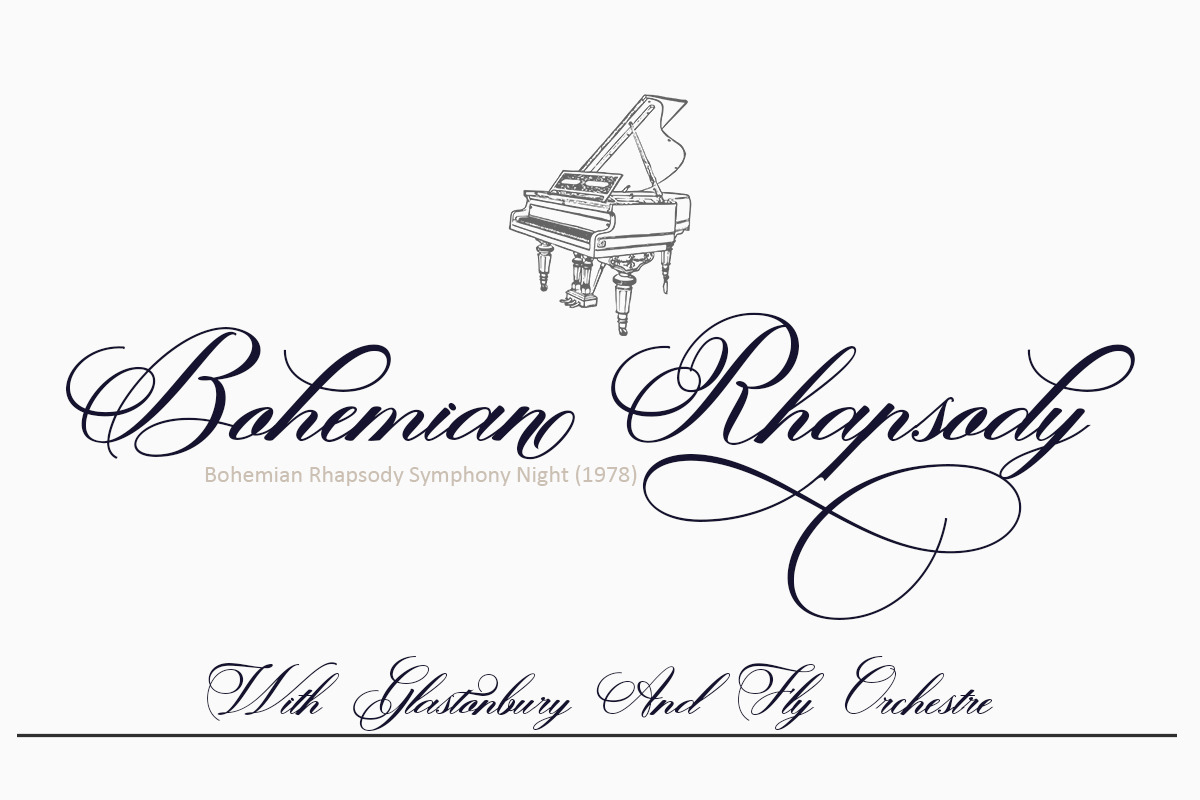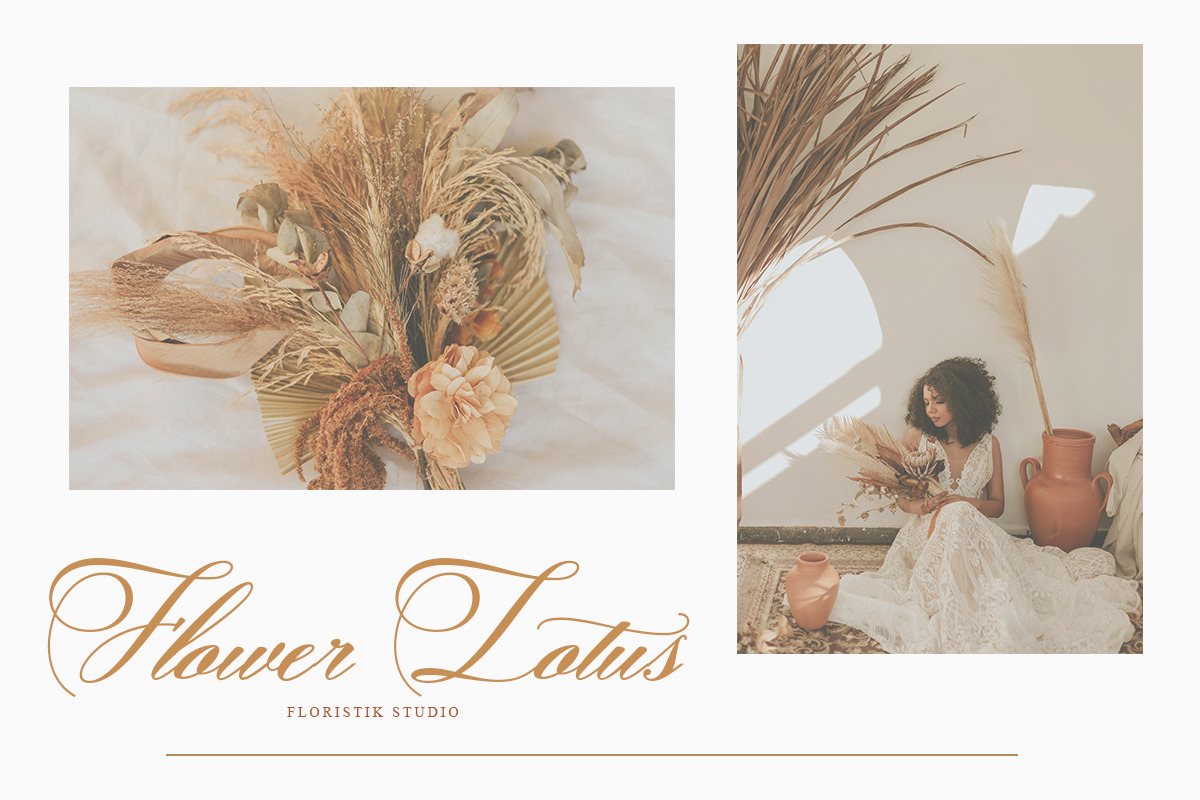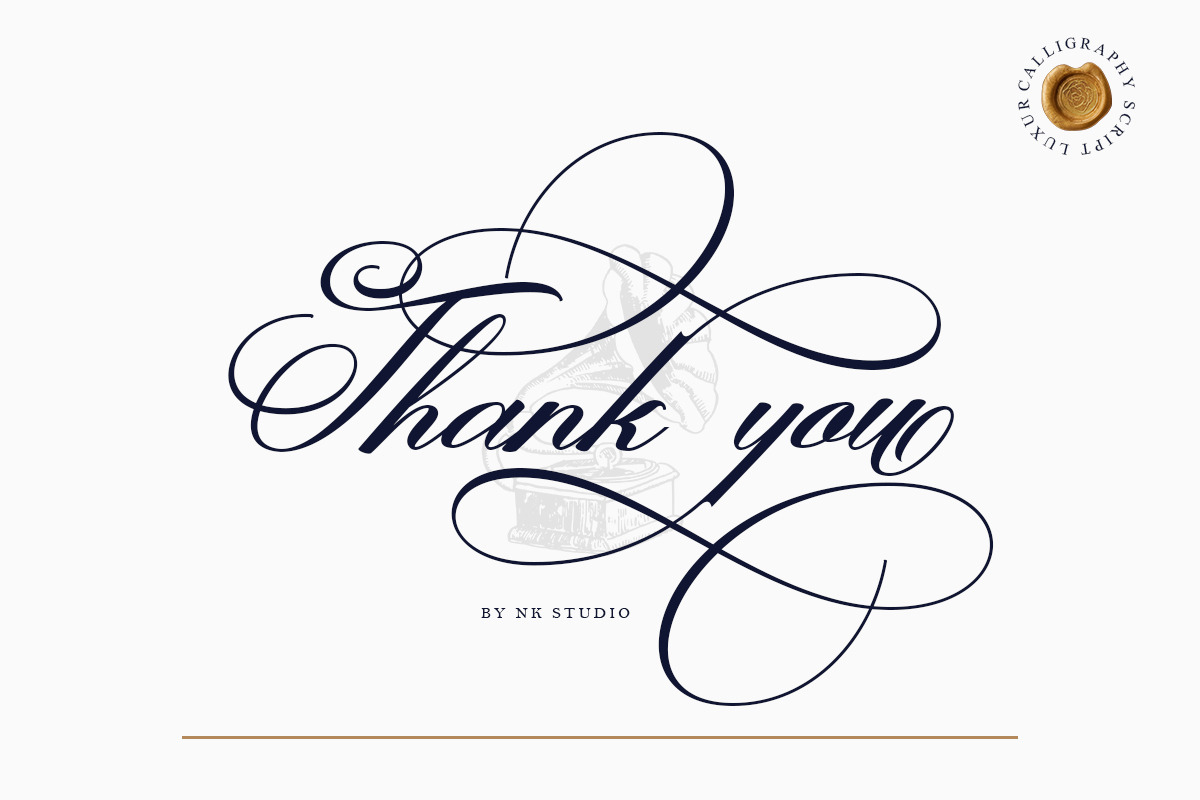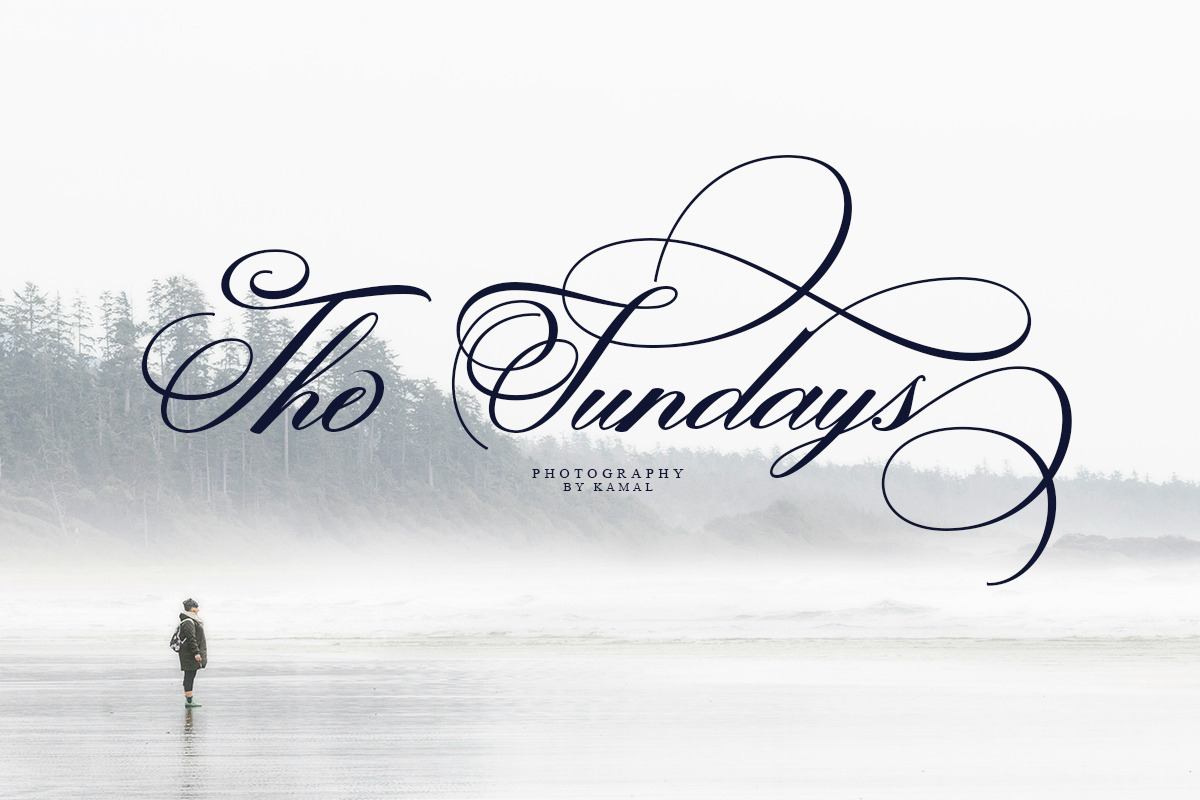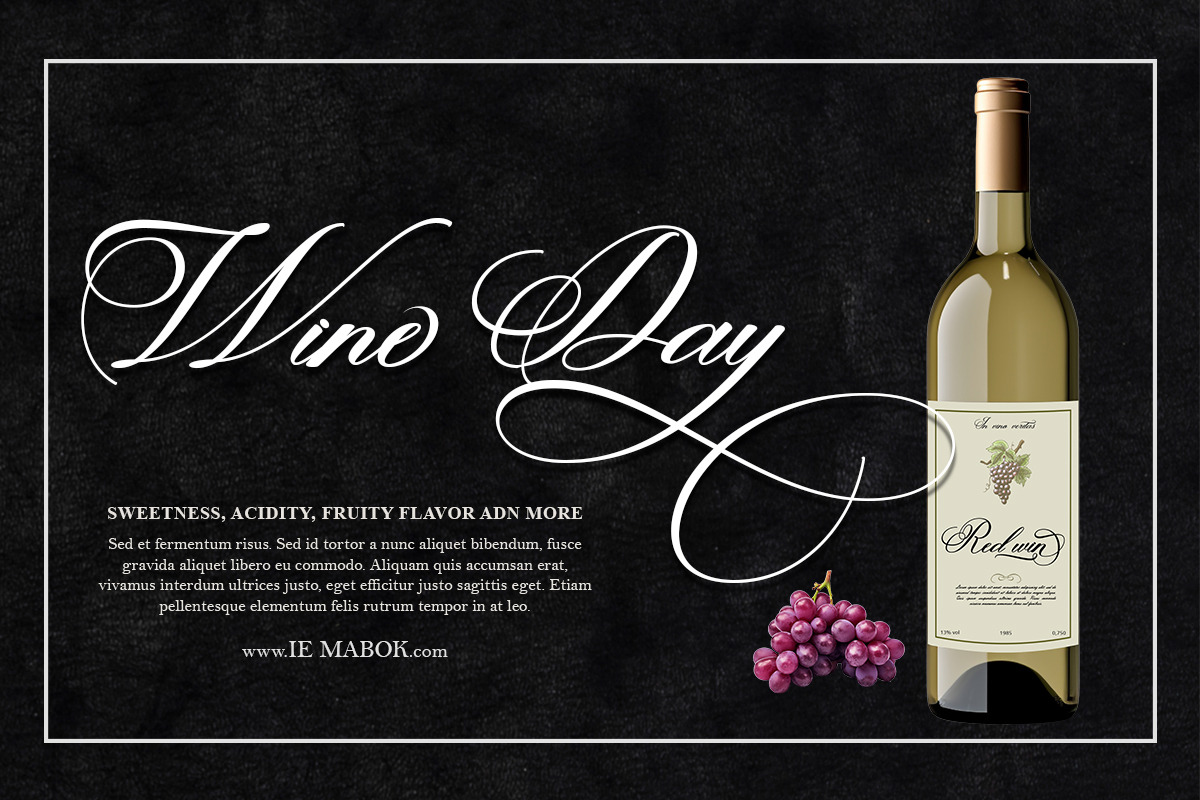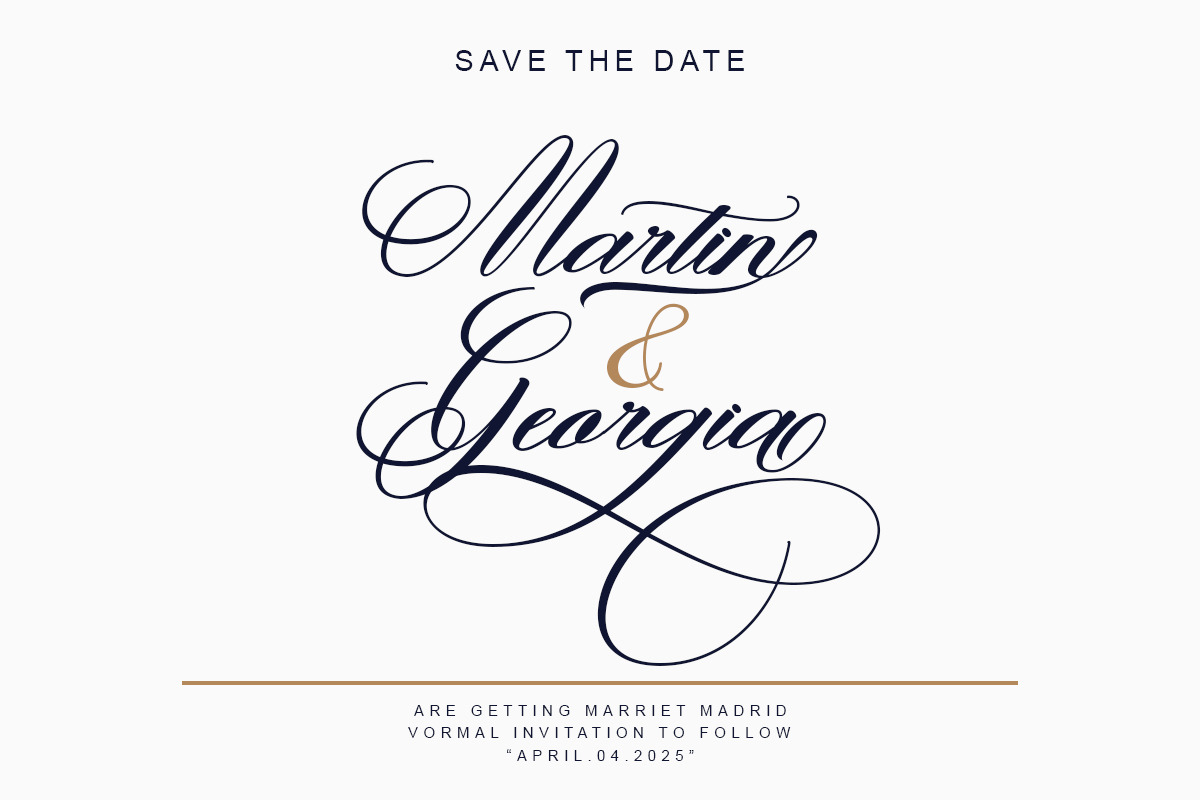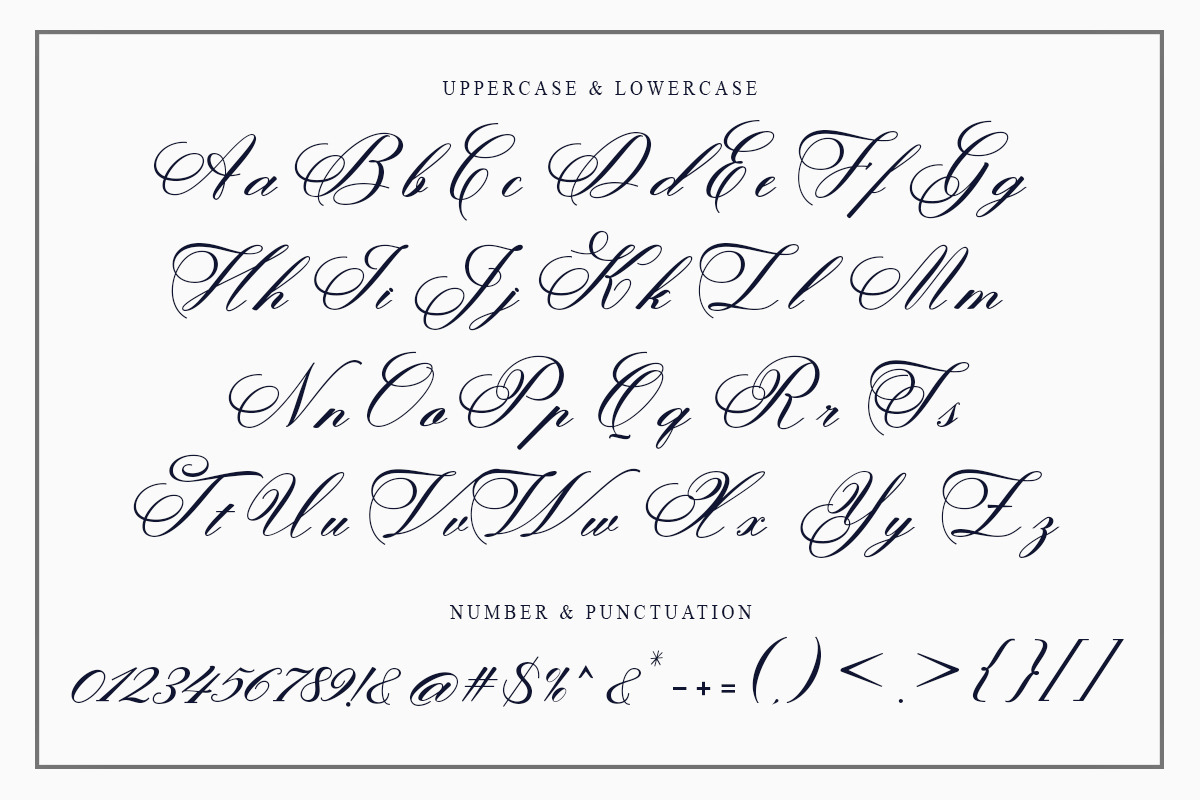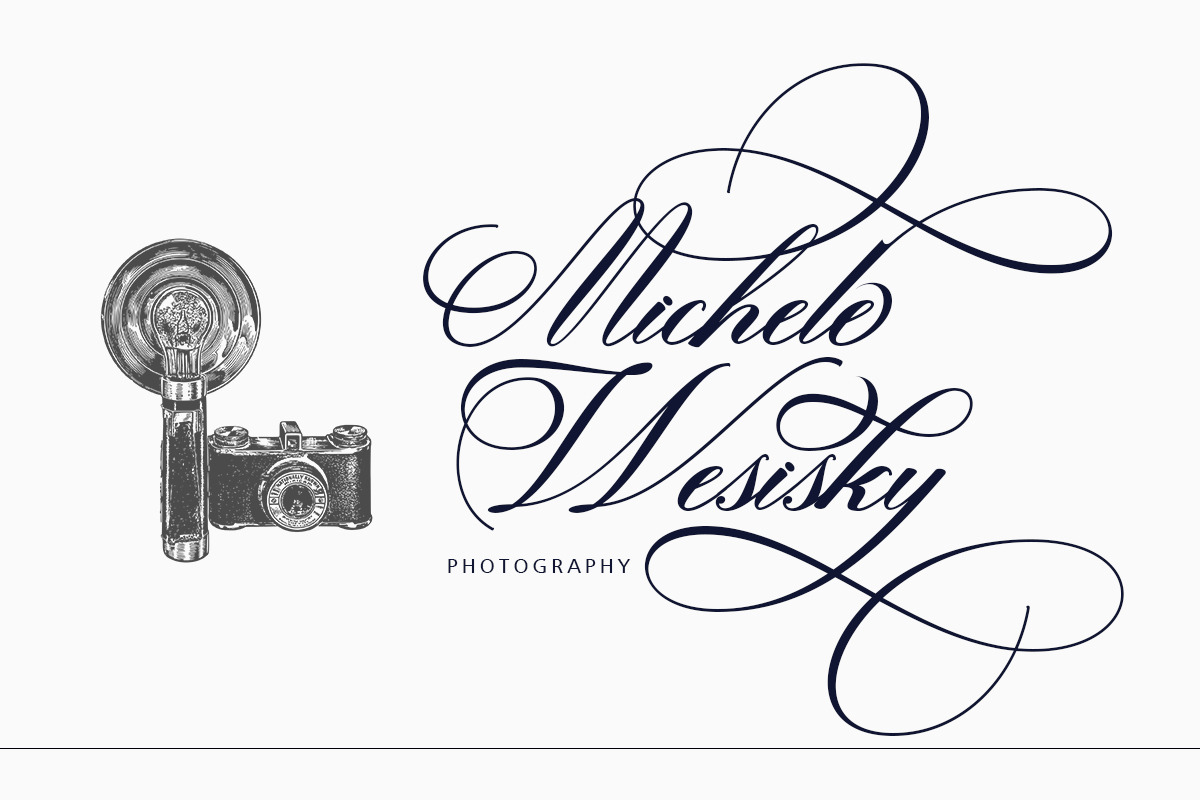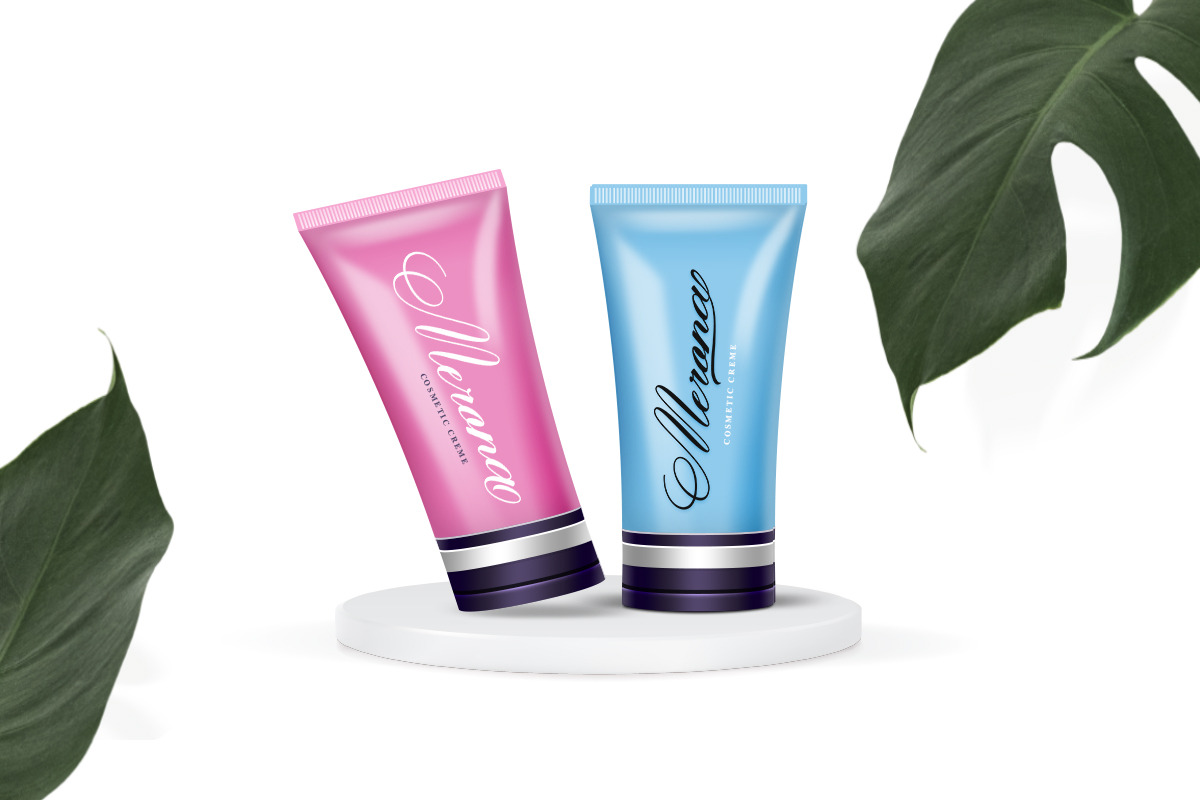
Emorphias
Introducing Emorphias, a captivating calligraphy font that effortlessly blends classic elegance with a contemporary touch. Its carefully designed characters morph beautifully, providing a visual treat that balances luxury and simplicity. Emorphias offers a refined, feminine, and sensual appeal, crafted in a clean, easy-to-read style adorned with interlocking letters, which enhance its charm. Its versatile classic style is perfect for a variety of applications ranging from formal invitations, restaurant menus, and logo designs to fashion, makeup, stationery, and more. Emorphias is also ideal for literary use ranging from novels, magazines, books to wedding and greeting cards, packaging, and all forms of advertising. What’s more? Emorphias comes with several alternate styles for different letters, making it a perfect asset to your creative arsenal. The font supports Unicode PUA encoding, providing easy access to all additional characters without the need for special design software. Mac users can take advantage of the Font Book, while Windows users can utilize the Character Map to view and copy additional characters into your favorite text editor/application. Remember, help is just a question away. Contact us if you have any questions. So, explore Emorphiyas and let your creative journey follow the path of elegance and style. Happy Designing with Emorphias!